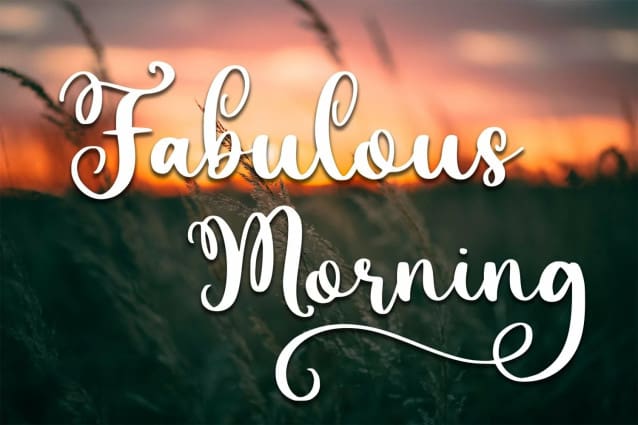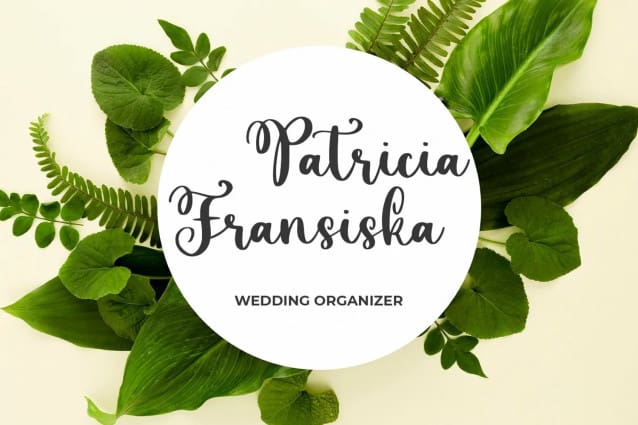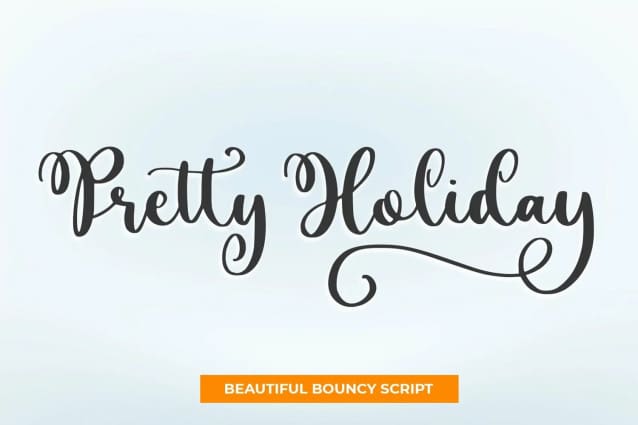
Pretty Holiday Font
Pretty Holiday Font is great for quotes, branding, t-shirt designs, tote bag designs, cards, banners, social media, and anything of craft project.